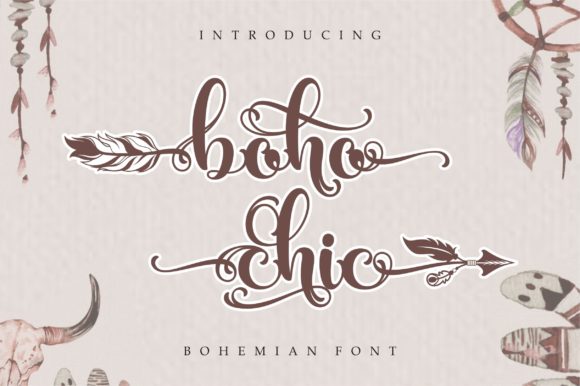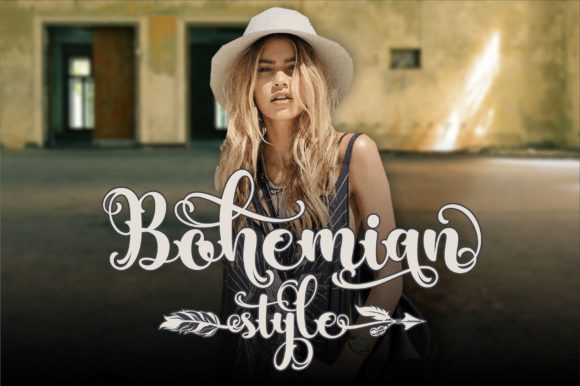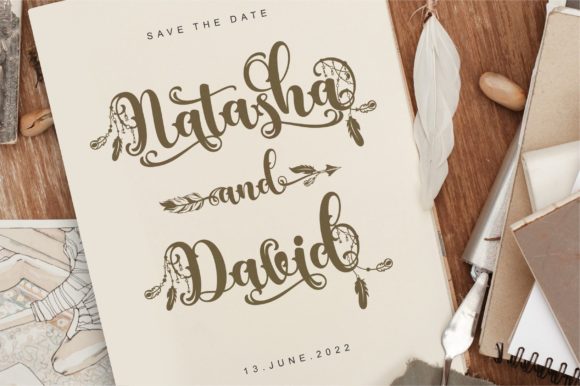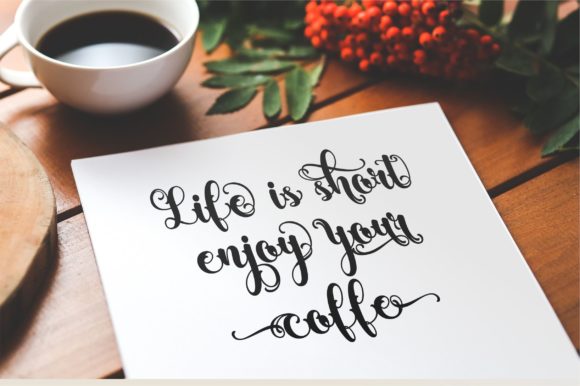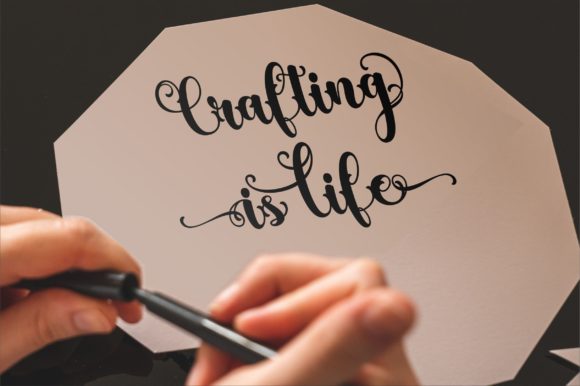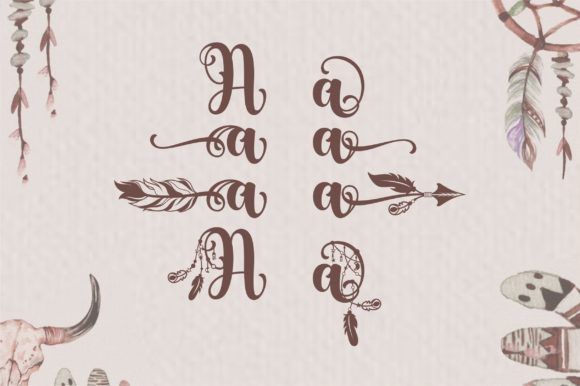
Discover the Magic of the Boho Chic Font
As designers, we’ve all been there – staring at a blank page, struggling to find the perfect font to bring our vision to life. The moment of clarity hits when you stumble upon a font that captures the essence of your creative direction. For me, that moment came when I discovered the enchanting Boho Chic Font.
This beautiful font embodies the free-spirited, eclectic vibe of bohemian style, adding a touch of elegance and sophistication to any design. With its PUA encoding, you can unlock a world of glyphs and swashes, giving you the creative freedom to experiment and push the boundaries of your design. Whether you’re working on a fashion brand, a travel brochure, or a wedding invitation, the Boho Chic Font is the perfect addition to your design arsenal.
Key Features of Boho Chic Font
- Font Style: Boho Chic Font is a hand-drawn, script font with a whimsical and elegant feel.
- Unique Characteristics: Features intricate flourishes, subtle texture, and a mix of cursive and print-like elements, giving it a unique, bohemian vibe.
Boho Chic Font Review
Overall, I’m quite fond of the Boho Chic font. It has a unique, free-spirited vibe that works well for a variety of designs. ✨ Its flowing, handwritten style adds a touch of elegance and sophistication, making it perfect for fashion, lifestyle, or travel-related projects. ✨ The font is also quite versatile, and I’ve had success using it for titles, headings, and even short paragraphs of text. ✨
However, I do have a few reservations about the font. ⚠️ For one, it can be a bit difficult to read at smaller font sizes, and the irregular spacing between letters can make it hard to decipher. ⚠️ Additionally, the font’s lack of bold and italic variations limits its usability in certain design scenarios. ⚠️
Here are some specific pros and cons I’ve encountered:
- ✨ Works well for titles and headings
- ✨ Perfect for fashion, lifestyle, and travel-related projects
- ✨ Unique, free-spirited vibe adds elegance and sophistication
- ⚠️ Difficult to read at smaller font sizes
- ⚠️ Lack of bold and italic variations limits usability
- ⚠️ Irregular spacing between letters can make text hard to decipher
Overall, I would recommend Boho Chic font for projects where a unique, handwritten style is desired. However, it may not be the best choice for designs that require clear, easy-to-read text at smaller font sizes.
Getting the Most Out of Boho Chic Font
For the best results, use the Boho Chic font in conjunction with other bohemian-inspired design elements, such as floral patterns and natural textures.
Experiment with different font sizes, colors, and styles to create a unique and eye-catching design.
The Boho Chic font is ideal for:
Bohemian-inspired branding and marketing materials
Travel and adventure-themed designs
Alternatives to Boho Chic Font for Designers
Alice
Alice is a beautiful, elegant script font that resembles hand-painted letters. It’s ideal for designs that require a touch of sophistication and romance. Alice has a more refined look compared to Boho Chic Font, which is more playful and free-spirited.
Great Vibes is a modern, handwritten font with a relaxed and casual feel. It’s perfect for designs that need a laid-back, beachy vibe. Great Vibes has a more polished look compared to Boho Chic Font, which is more eclectic and bohemian.
Are there any specific font sizes or line heights recommended for optimal display of the Boho Chic Font?
For optimal display of the Boho Chic Font, we recommend using font sizes between 14pt and 24pt, and line heights that are at least 1.2 times the font size. This will ensure that the font is legible and visually appealing in most applications and contexts.